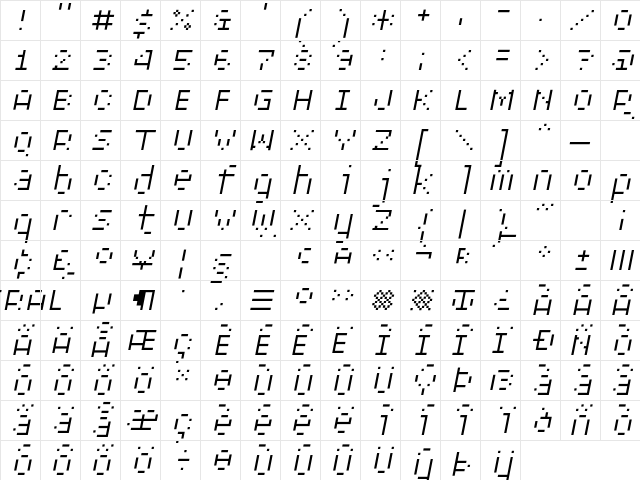
XERXES ELEVENALTOBLIQUE
Style: ELEVENALTOBLIQUE
XERXES Family
Design Context for XERXES
XERXES is a composed and adaptable typeface that performs quietly and consistently across a wide range of design contexts. The slanted form adds forward momentum and visual energy.
Pro Tip: Use XERXES for emphasis, pull quotes, and subheadings where its slanted energy can add rhythm to the layout.